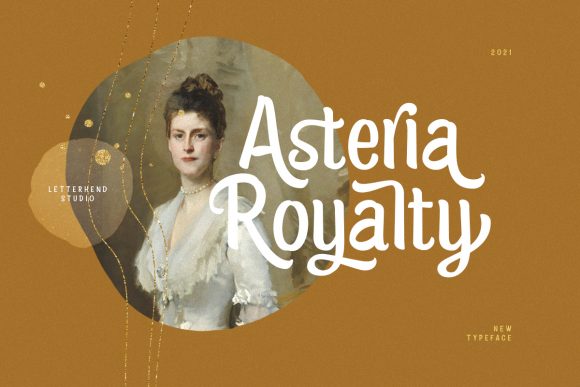
Step into the realm of typography and discover the enchanting Asteria Royalty Font, an exquisite display font crafted by the skilled hands at Letterhend. This font is a captivating fusion of vintage charm and modern elegance, seamlessly blending classic details with a contemporary twist. With its ornate curves, sweeping strokes, and distinct terminals, Asteria Royalty exudes an air of sophistication that will elevate your designs to new heights.
Unleash your creativity and let Asteria Royalty take center stage in your projects. From eye-catching logos and branding elements to captivating posters and social media graphics, this font will effortlessly command attention, leaving a lasting impression on your audience. Its versatility extends beyond the digital realm, making it a perfect choice for print projects such as brochures, flyers, and packaging designs.
Immerse yourself in the world of Asteria Royalty and let your imagination soar. This font is your gateway to a world of endless possibilities, inviting you to express your individuality and make a statement with your designs. Whether you're a seasoned designer or just starting your creative journey, Asteria Royalty will become an indispensable tool in your font library.
As you embark on your creative journey with Asteria Royalty, you'll discover a font that's not just visually stunning but also incredibly user-friendly. Its PUA encoding ensures effortless access to all glyphs and swashes, making it a breeze to incorporate intricate details and flourishes into your designs.
Don't miss out on the opportunity to add Asteria Royalty to your collection. This font is destined to become a favorite, inspiring you with its timeless beauty and versatility. Embrace the power of Asteria Royalty and witness the transformation of your designs as they take on a life of their own.